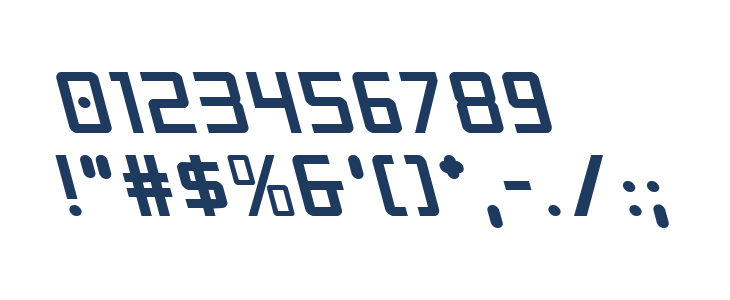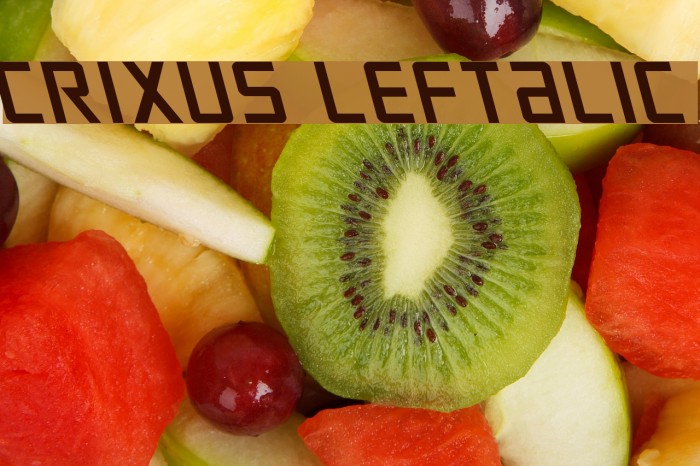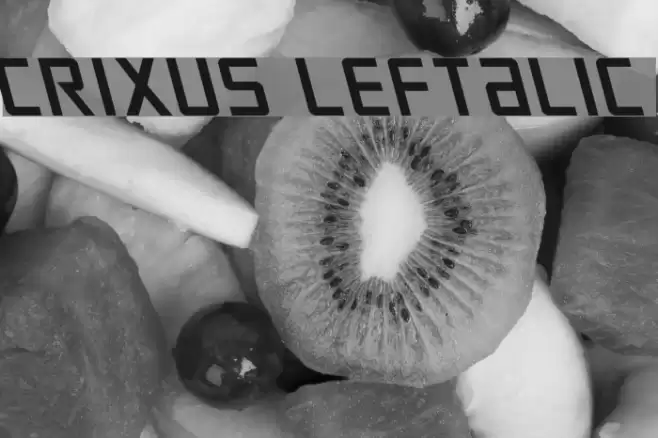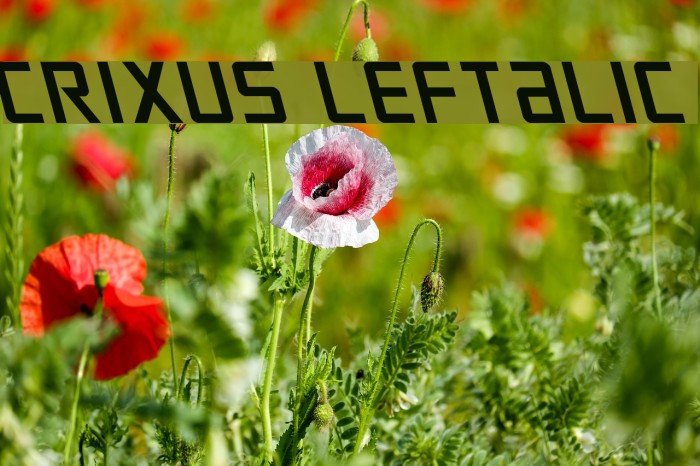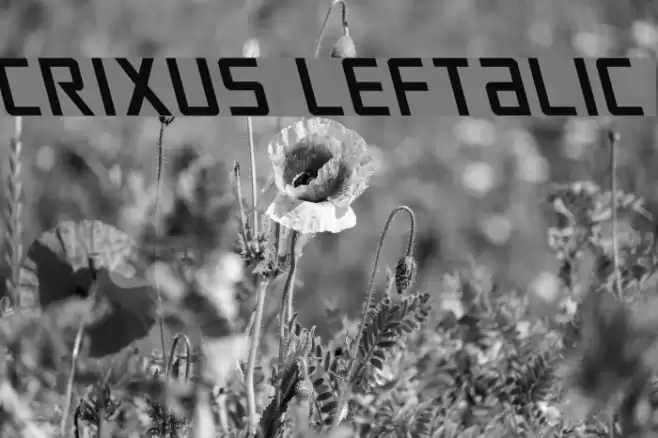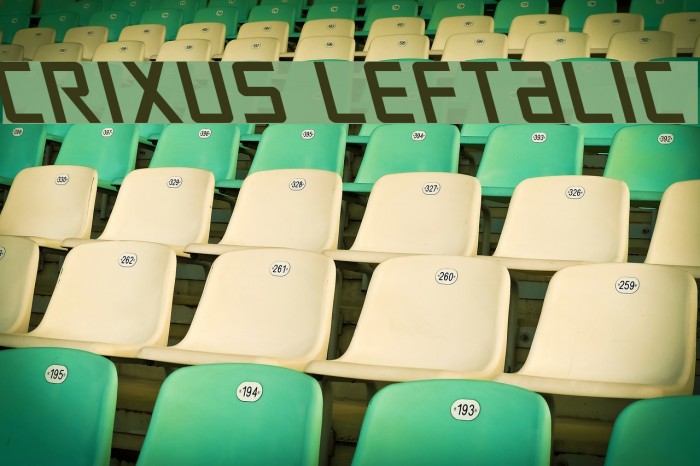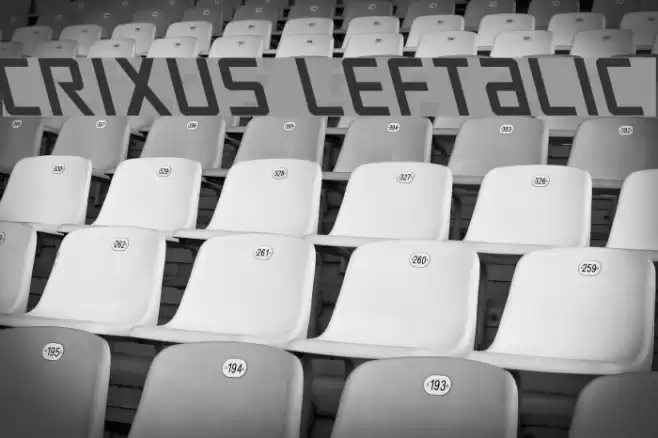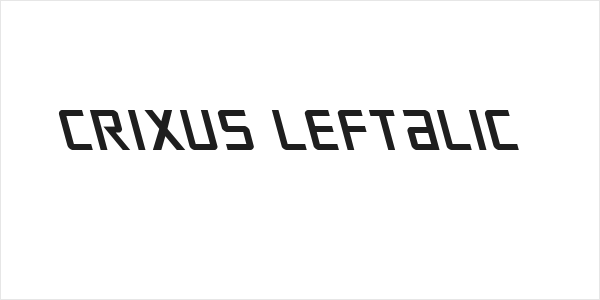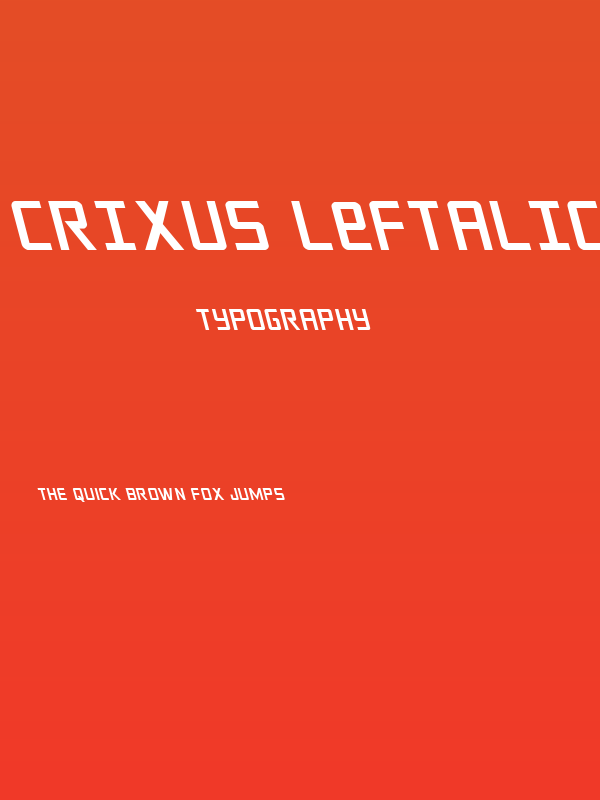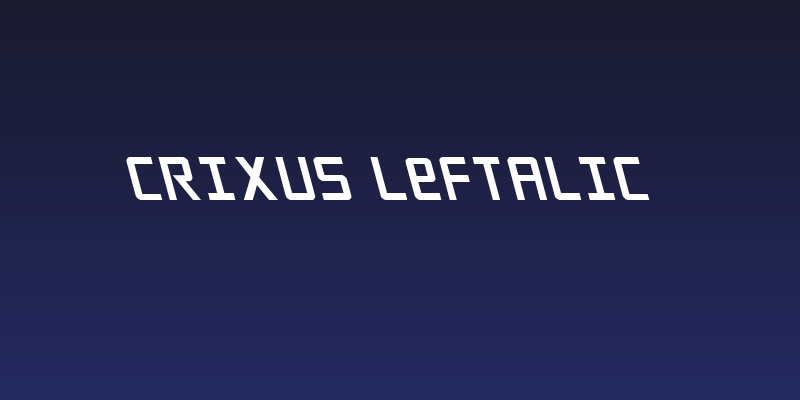
Crixus Leftalic Font
Crixus Leftalic Description
This font features a bold, angular design with a modern and futuristic aesthetic. The characters are slightly slanted, giving a dynamic and forward-moving appearance. The uppercase and lowercase letters maintain a consistent geometric style, with sharp edges and a uniform thickness throughout. The numerals and special characters follow the same design principles, ensuring a cohesive look across all glyphs. The font's strong presence makes it suitable for attention-grabbing headlines and impactful designs.
Proposed ProjectsIdeal for futuristic branding, tech-related projects, sports team logos, and dynamic poster designs.